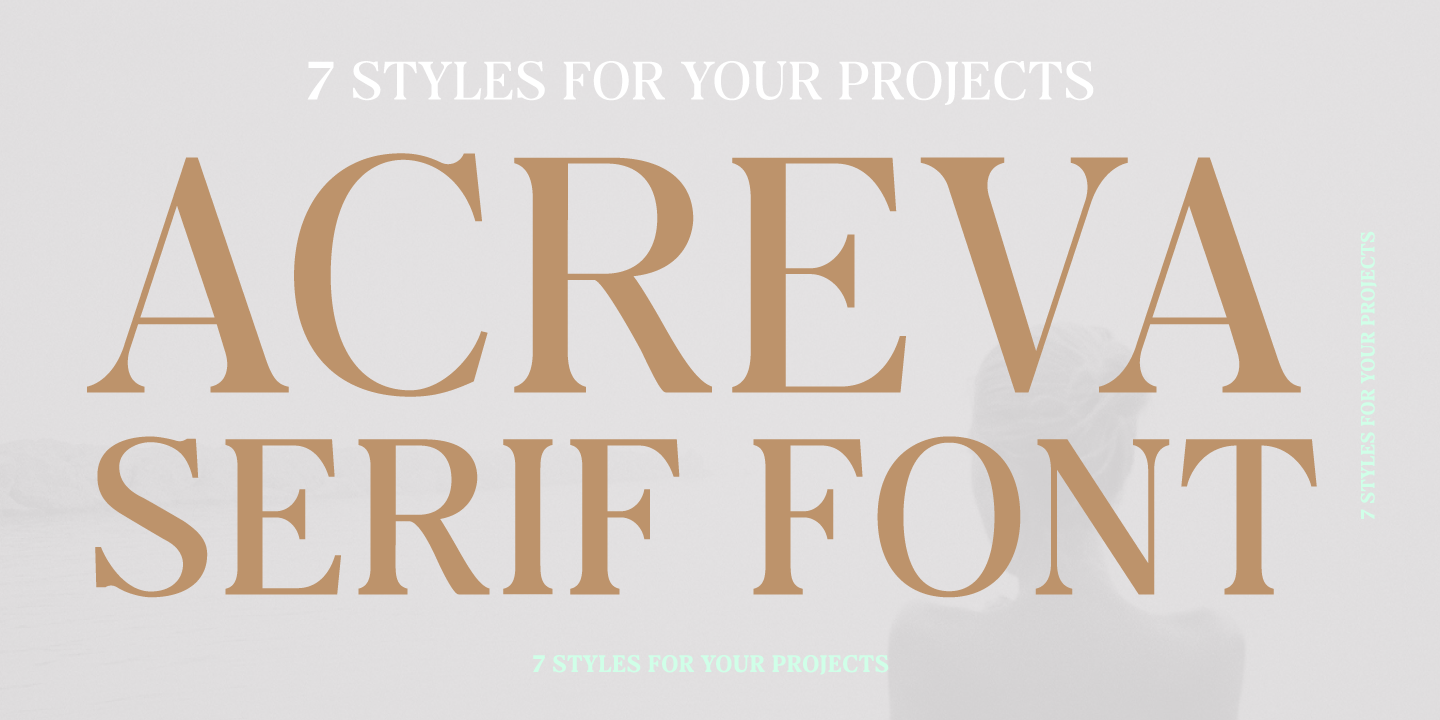
Acreva Font is perfect for contemporary art galleries, innovative design studios, modern architectural firms, cutting-edge technology brands, progressive marketing campaigns, avant-garde publications, creative agency identities, and experimental typography projects. This distinctive typeface brings artistic innovation, creative expression, and forward-thinking sophistication to any project requiring typography that pushes conventional boundaries and communicates artistic vision and contemporary design excellence.
What makes Acreva Font exciting is its remarkable fusion of artistic experimentation with functional precision that creates typography perfectly suited for the creative industry's evolving needs. The font features uniquely crafted letterforms with innovative character details, dynamic proportions that challenge traditional typography conventions, and creative flourishes that reflect contemporary artistic movements. Its avant-garde character embodies the spirit of creative rebellion and artistic innovation, making it ideal for brands and projects that want to communicate originality, artistic vision, and progressive thinking in competitive creative markets.
The Acreva Font family typically includes multiple weights with distinctively artistic letterforms, alternate character variations that enhance creative flexibility, and comprehensive symbol collections designed for sophisticated contemporary design applications. The design maintains consistent creative identity while providing advanced typography options for modern branding projects and artistic communications that demand distinctive visual presence and innovative appeal.
Whether you're developing cutting-edge brand identities or creating experimental design projects, Acreva Font Free Download delivers exceptional artistic sophistication and creative versatility. This typeface excels in both large display applications and carefully crafted text settings, maintaining its innovative character while ensuring optimal readability and visual impact. Its progressive aesthetic makes it particularly effective for design agencies, art institutions, and creative brands that want to communicate artistic excellence and innovative thinking. The font's distinctive presence helps establish memorable brand differentiation while ensuring maximum impact in creative industries where Acreva Font Free Download originality and artistic vision are essential for capturing attention and inspiring audiences.